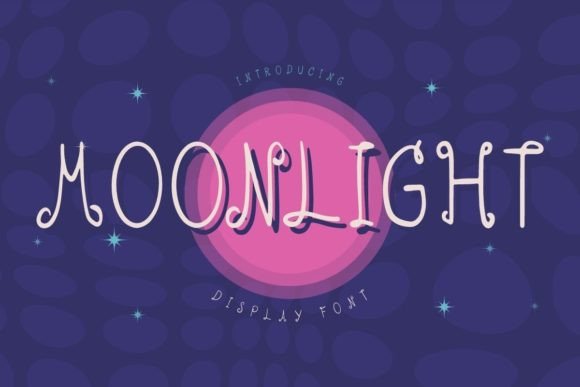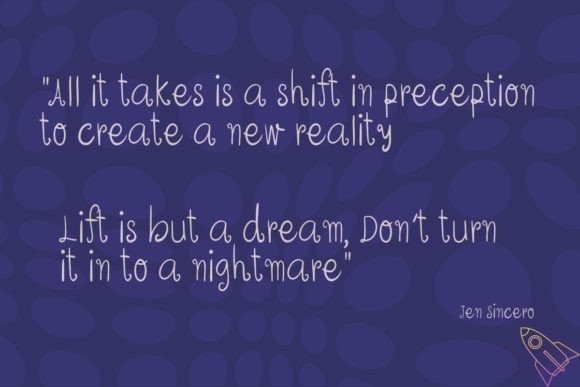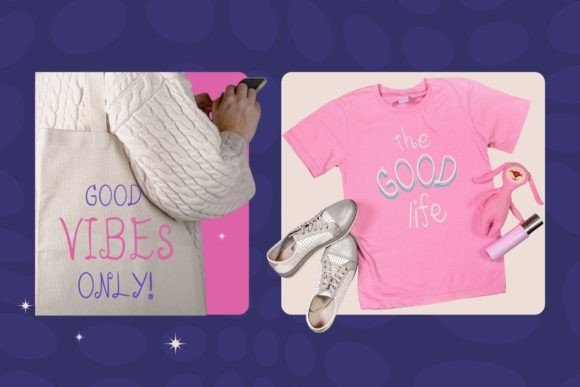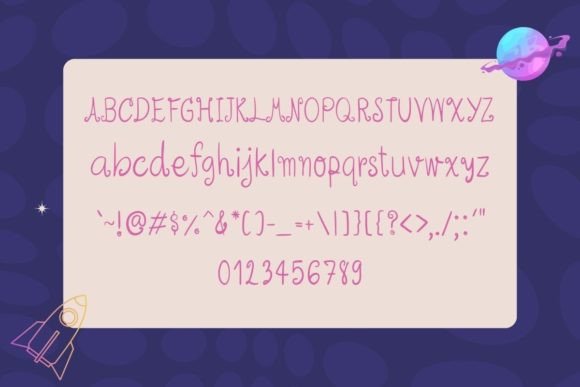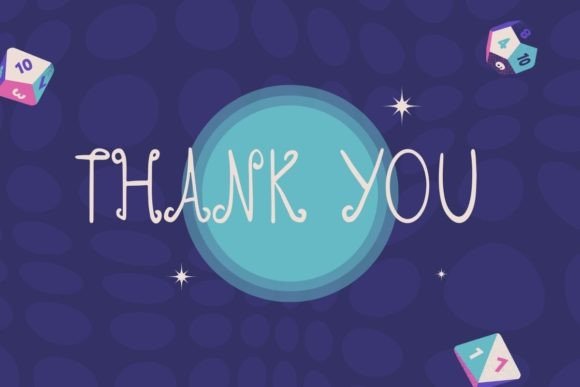
Moonlight Font
About Moonlight Font
“Moonlight” is a fun and swirly handwritten font that exudes a whimsical and slightly mysterious charm. This font is a fantastic choice for a wide array of creative projects, and its playful nature knows no bounds. Whether you’re working on kids’ crafts, designing eye-catching posters, creating engaging web graphics, embarking on sublimation projects, crafting delightful cards, and much more, “Moonlight” invites you to let your imagination run wild.
The charm of “Moonlight” lies in its playful and swirly lettering. Its whimsical and slightly mysterious characters create a captivating and delightful visual experience. This font is ideal for projects that aim to inspire creativity and convey a sense of fun and wonder.
One of the standout qualities of “Moonlight” is its limitless potential. Whether you’re designing for personal or professional endeavors, this font adapts seamlessly to your creative vision. It encourages you to explore the boundaries of your imagination.
“Moonlight” is a font that adds an element of fun and mystery to your projects. Whether you’re a professional designer or an enthusiast with a passion for crafting and design, it brings a unique and engaging quality to your work that resonates with a diverse audience.
In summary, “Moonlight” is more than just a font; it’s a playful and versatile creative tool that can elevate your projects. Embrace the whimsy and mystery of “Moonlight,” and let it inspire your creativity as you explore endless possibilities in your design endeavors.